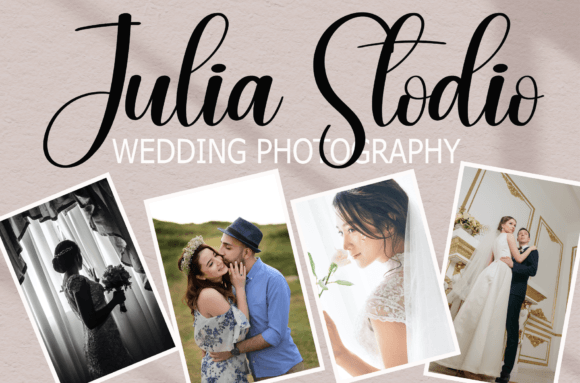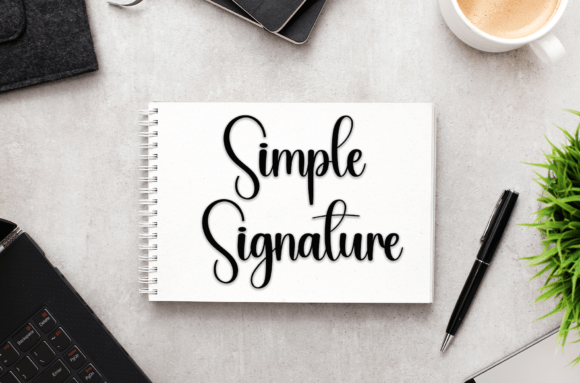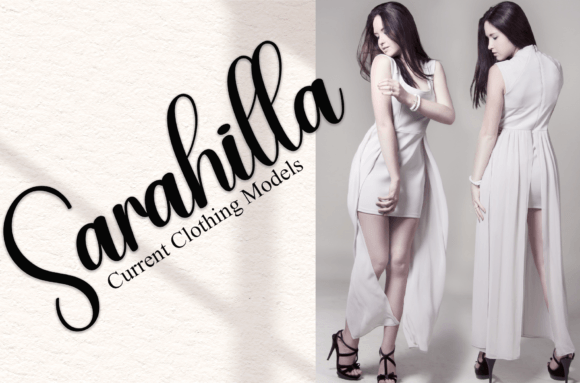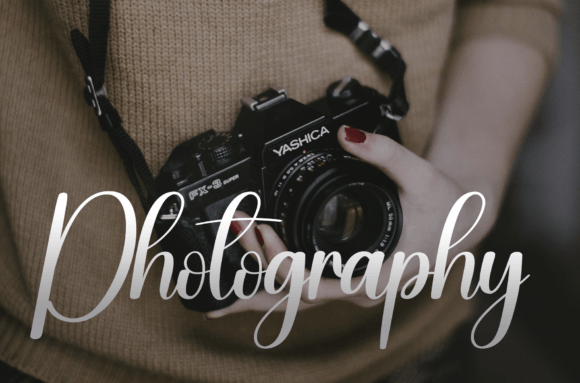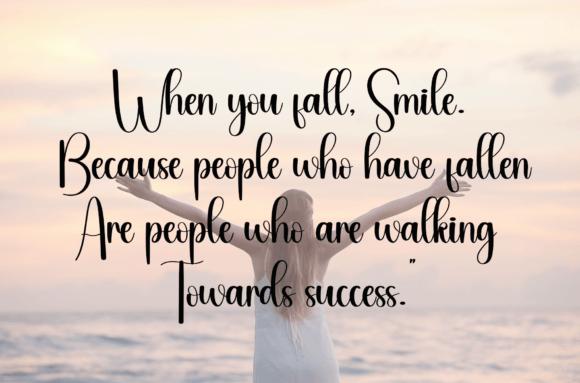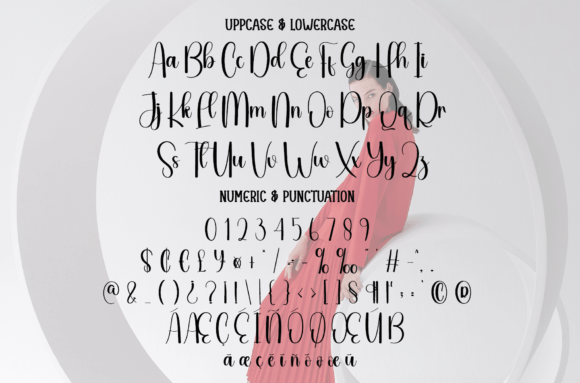
The Charm of Handwritten Typography
Have you ever sat at your desk, surrounded by scattered papers and ideas, searching for the perfect font to capture the essence of a special moment? It’s a feeling designers know all too well. The hunt for that one font that perfectly conveys emotion and personality can be a daunting task. But what if I told you I’ve found a hidden gem that’s sure to elevate your designs and leave a lasting impression?
Meet the Carmine Font, a sweet and friendly handwritten font that’s fresh, neat, and perfect for adding a fun touch to your designs. Whether it’s a wedding invitation, a birthday card, or any other special occasion, Carmine Font is sure to bring a smile to the reader’s face. As a designer, you know how valuable it is to have a versatile font that can be used in a variety of contexts, and that’s exactly what the Carmine Font delivers.
Carmine Font Key Features
- Font Style: Script, Calligraphy
- Unique Characteristics: Elegant, cursive, and ornate script font with a touch of classic sophistication
Carmine Font Review
Carmine is a beautiful, elegant font that shines in certain contexts ✨. The font’s subtle flair and refined lines make it perfect for projects that demand sophistication and refinement. It’s ideal for branding, luxury items, or high-end publications. I particularly love how it adds an air of sophistication to any design, elevating it to new heights.
- The font’s versatility makes it suitable for a wide range of projects, from fashion to finance.
- Carmine’s unique design adds a touch of individuality to any design, setting it apart from more generic fonts.
- The font’s subtlety allows it to blend seamlessly into any design, making it easy to work with.
However, there are some limitations to keep in mind ⚠️. The font may struggle to stand out in more casual or playful contexts, where a bolder or more attention-grabbing font may be needed. Additionally, the font’s elegance can sometimes make it feel overly formal, which may not be suitable for every project.
Overall, I’m impressed with Carmine’s ability to elevate designs and add a touch of sophistication. While it may not be the best fit for every project, it’s a solid choice for those looking to add a bit of refinement and elegance to their work.
Tips for Getting the Most Out of Carmine
For the best results, use Carmine in bold or italic to add emphasis to your text. You can also pair Carmine with other fonts to create a unique and stylish design. Experiment with different font sizes and combinations to find the perfect look for your project.
Common Use Cases for Carmine
Carmine is ideal for use in headings, titles, and body text where a bold and elegant font is desired. It’s also a great choice for designing invitations, brochures, and other marketing materials where a professional and stylish look is needed.
Alternatives to Carmine Font
Fontin is a modern sans-serif font that is often used for digital products and interfaces. It’s ideal for projects that require a clean and minimalistic aesthetic. Compared to Carmine Font, Fontin has a more rounded and friendly feel, making it suitable for a wider range of applications.
Lato is a sans-serif font that is highly legible and versatile. It’s commonly used in digital design, branding, and publishing. Lato has a similar feel to Carmine Font, but with a more condensed and modern appearance. It’s an excellent choice for projects that require a professional and sophisticated look.
Montserrat is a geometric sans-serif font that is highly adaptable and versatile. It’s often used in digital design, branding, and publishing. Compared to Carmine Font, Montserrat has a more geometric and structured feel, making it suitable for projects that require a strong and modern aesthetic.